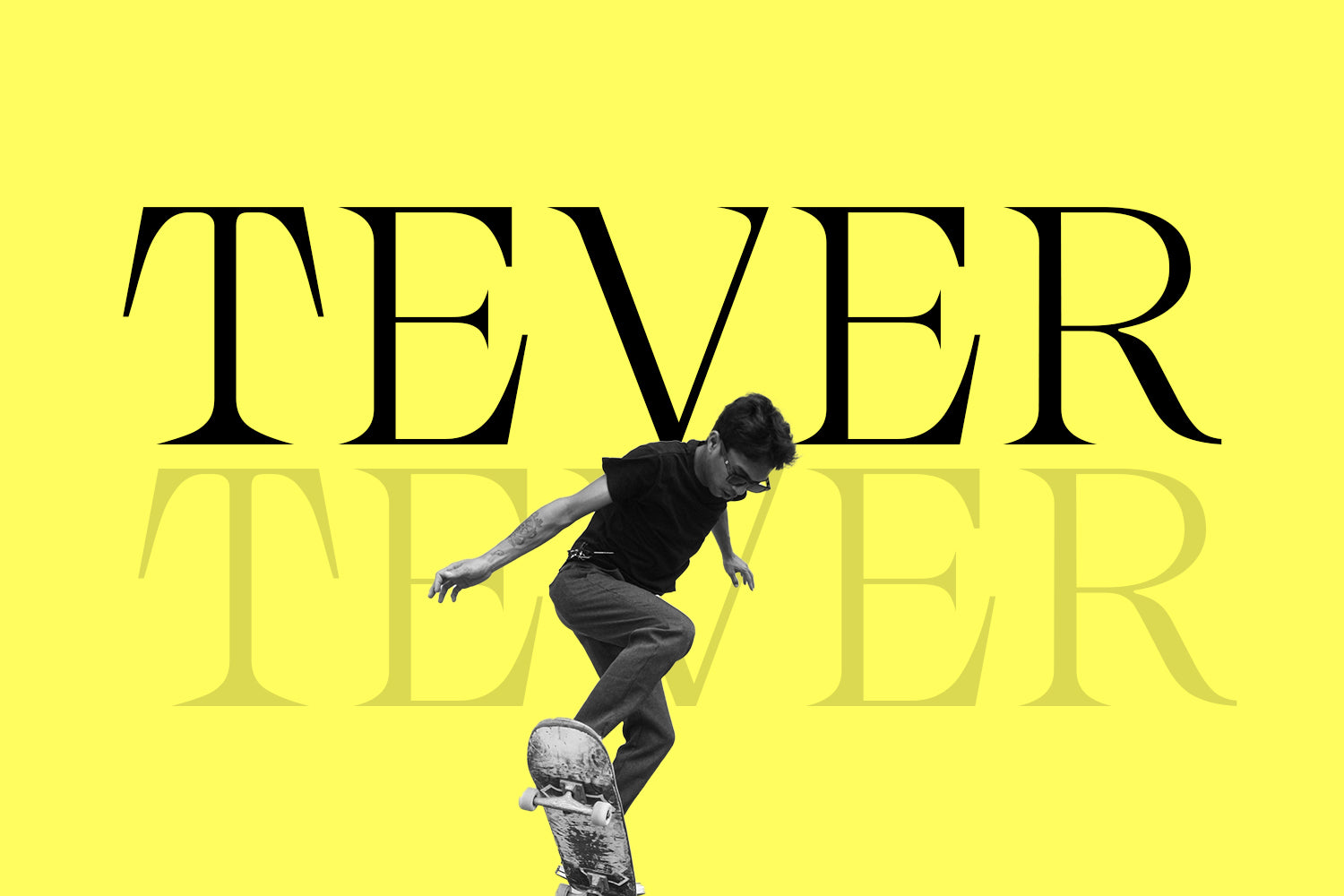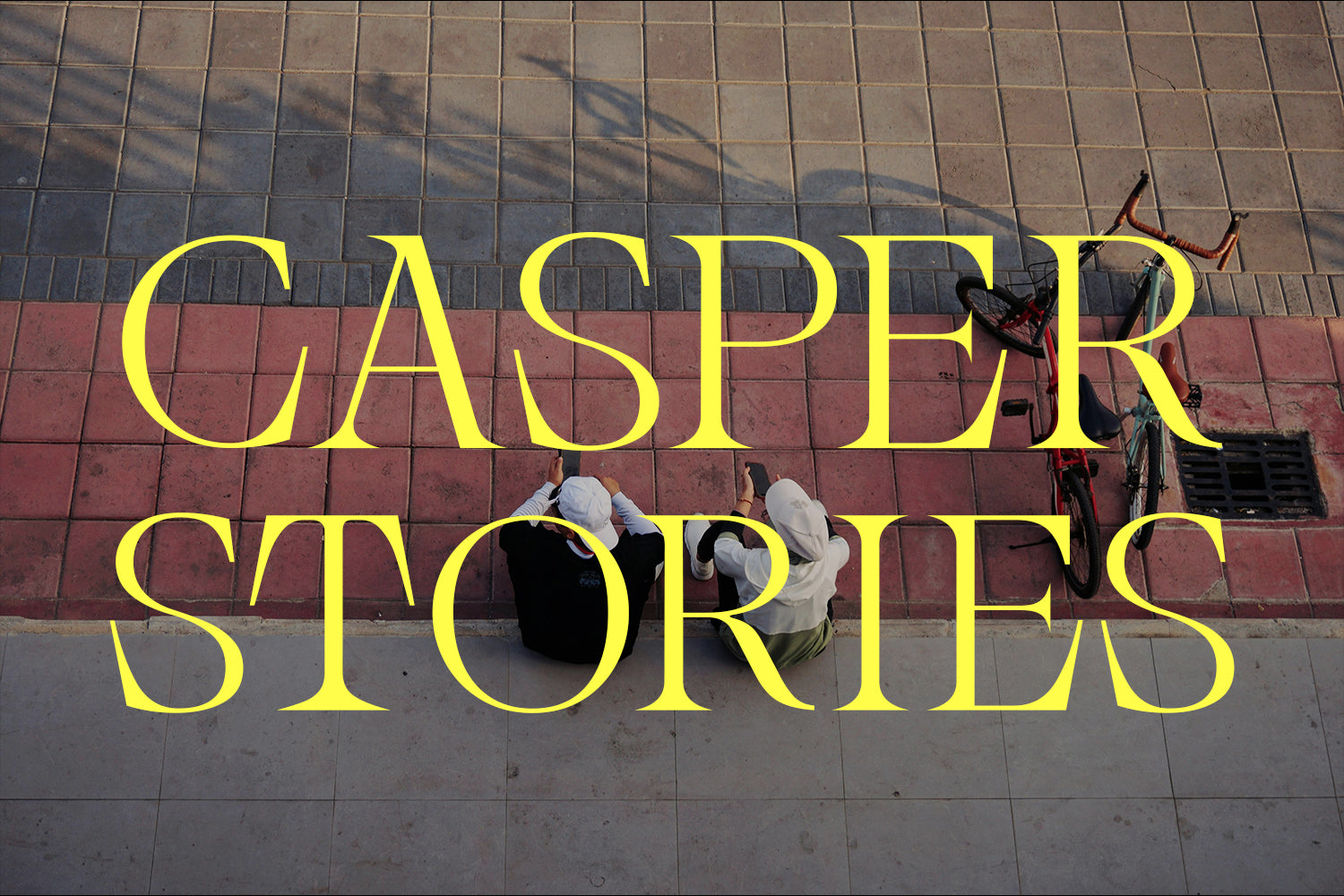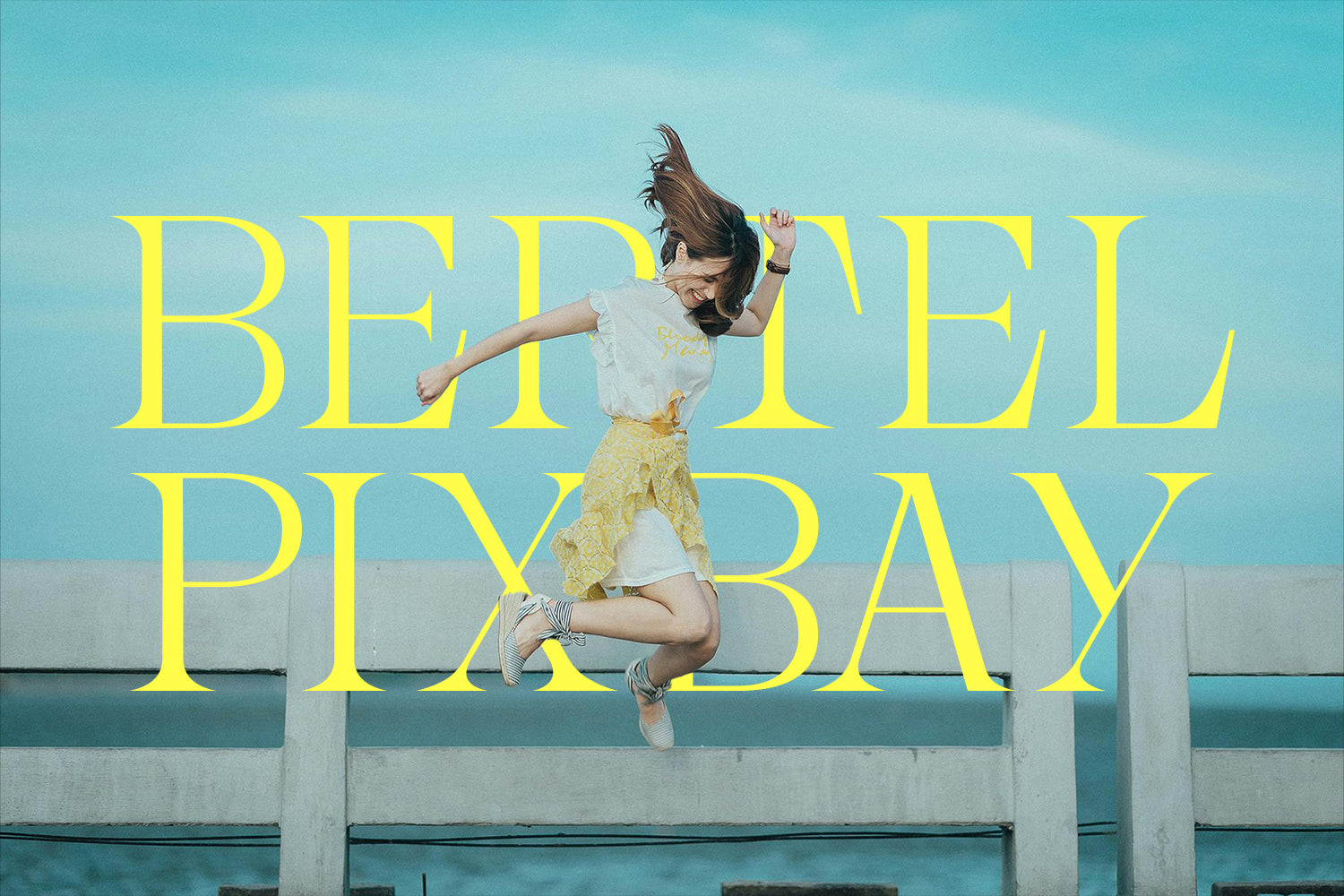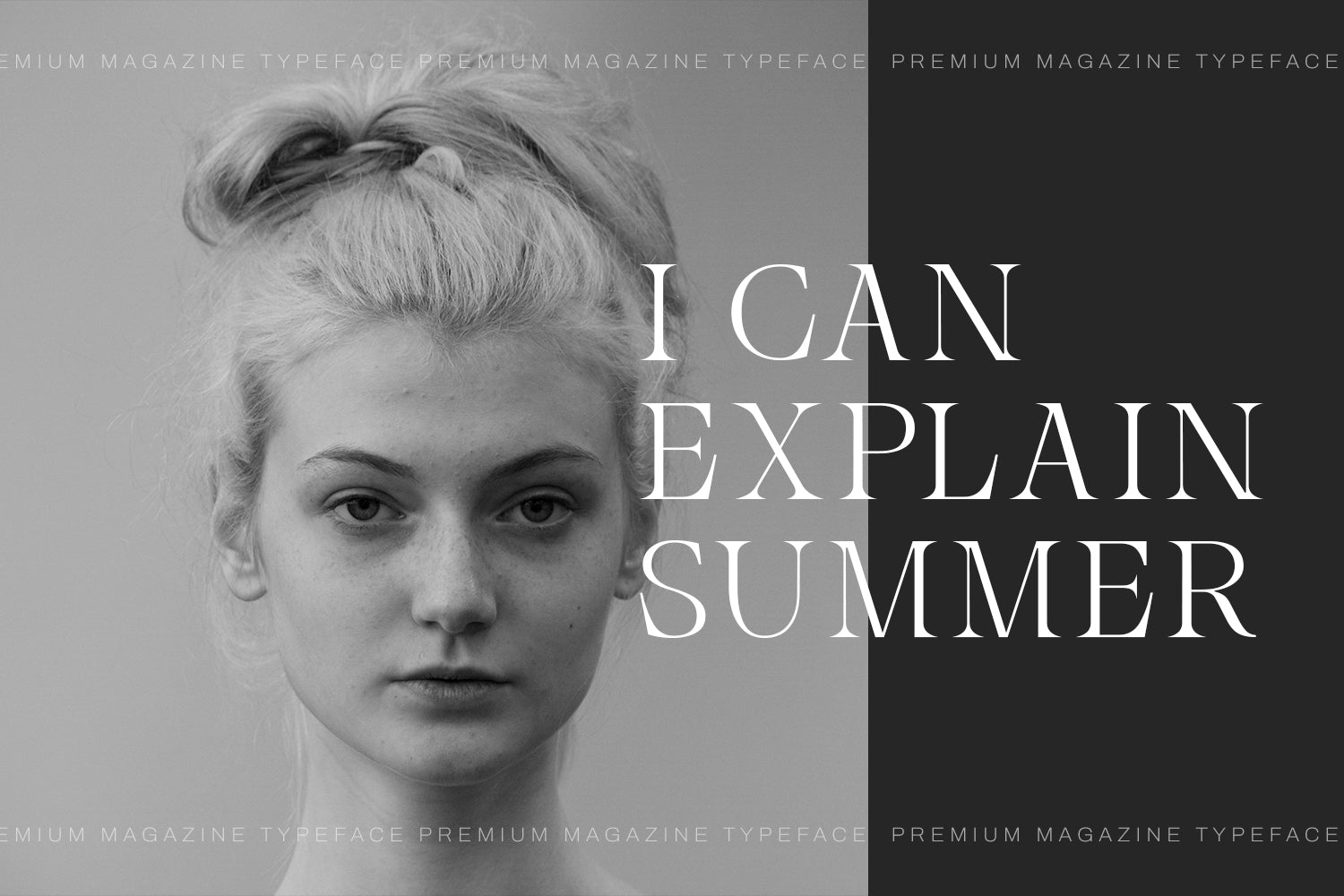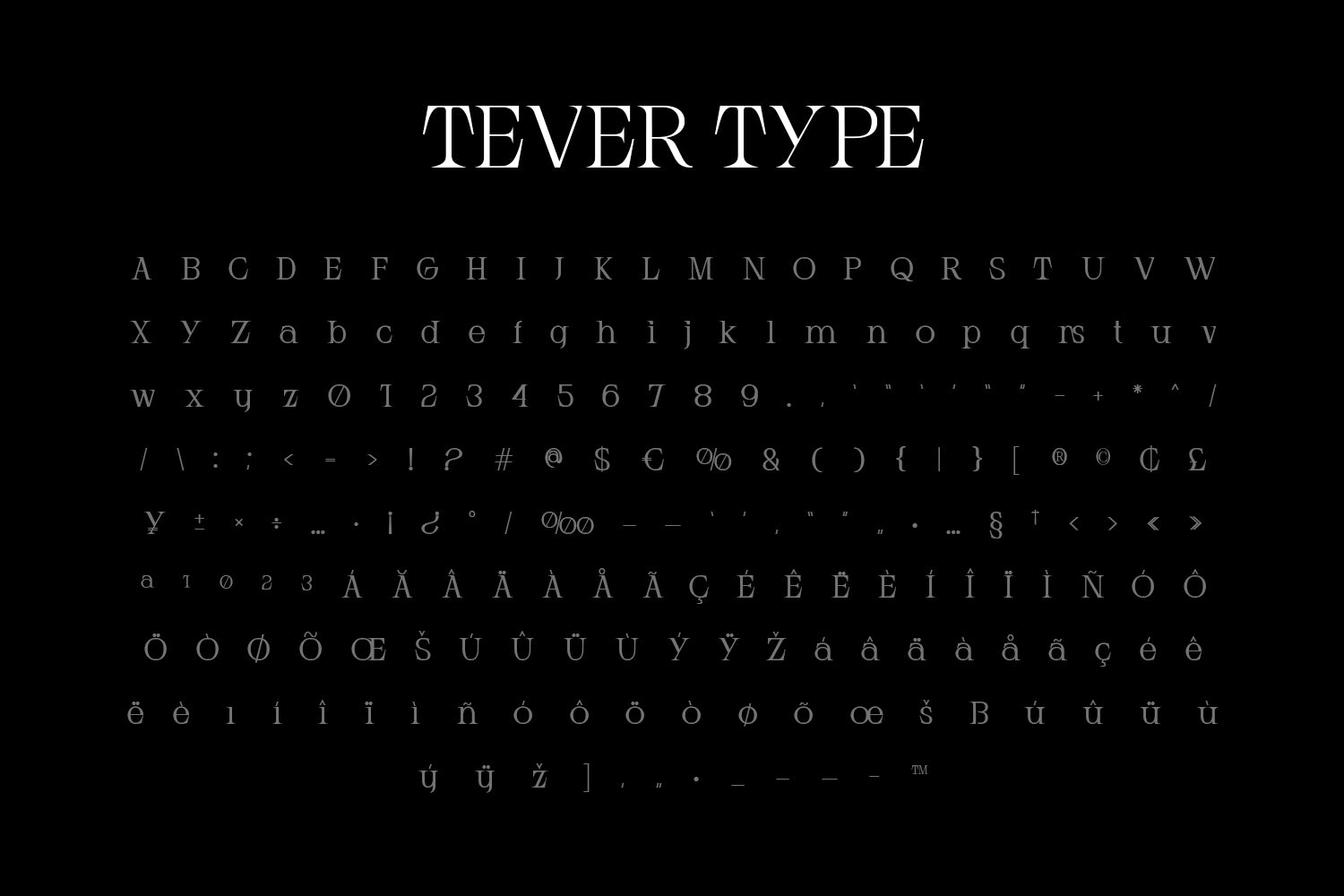
Tever Typeface
Tever Typeface is a bold and sophisticated type family meticulously crafted for standout branding and editorial design. Tailored for high-impact visual storytelling, Tever strikes the perfect balance between elegance and authority—making it ideal for magazine covers, fashion spreads, product packaging, and upscale brand identities.
With clean lines, refined proportions, and a contemporary edge, Tever commands attention without overpowering the layout. Its versatile weights and stylistic alternates offer flexibility, enabling designers to create both timeless headlines and expressive typographic compositions.
Whether you’re curating a luxurious print cover or building a modern visual identity, Tever Typeface ensures your message is delivered with clarity, style, and distinction.